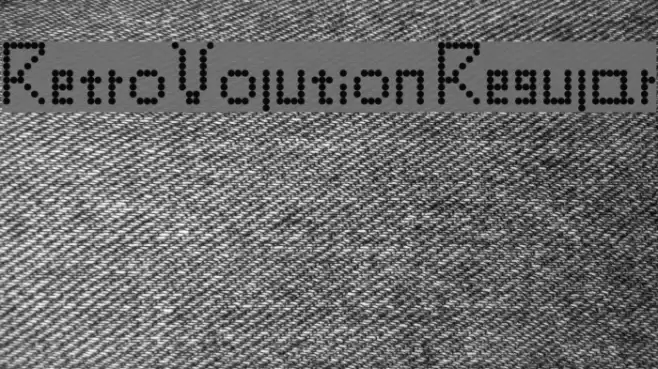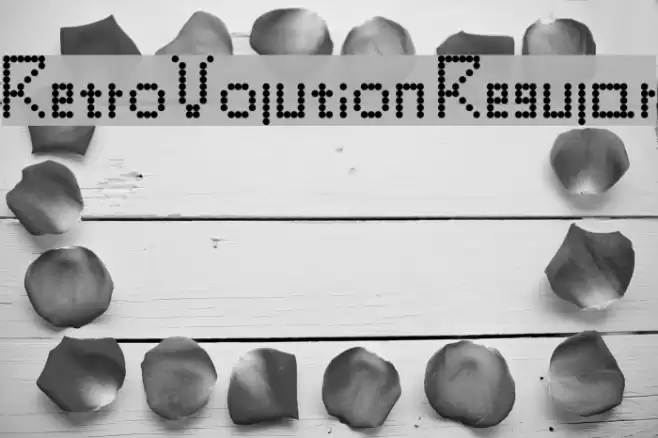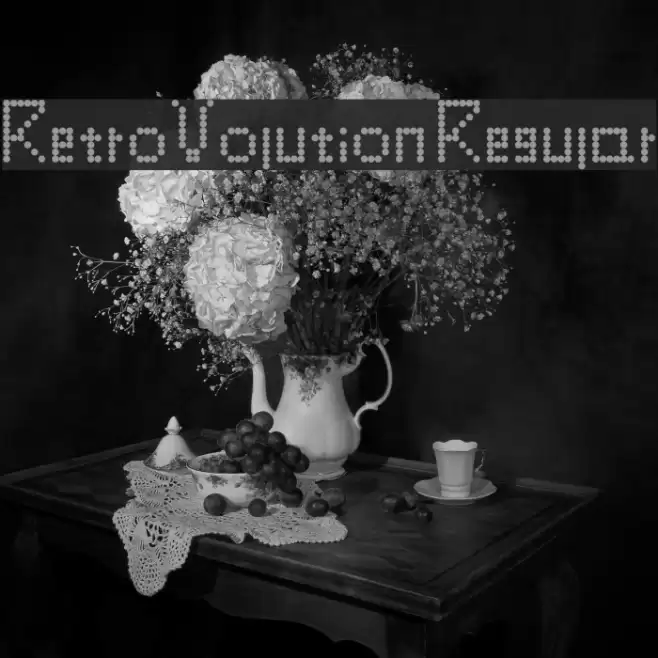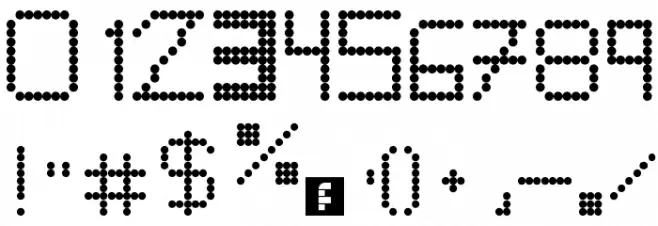
RetroVolution Regular Font
RetroVolution Regular Description
This font features a unique dot matrix style, where each character is composed of small, evenly spaced dots. The design evokes a retro, digital aesthetic reminiscent of early LED displays or dot matrix printers. The characters are uniformly structured, providing a consistent and rhythmic appearance across both uppercase and lowercase letters, as well as numbers and special characters. This font is highly decorative, making it ideal for projects that require a vintage or tech-inspired look. The spacing between the dots is precise, creating a clean and organized visual effect.
A dot matrix style font with a retro digital aesthetic from Futuristic fonts.
- Proposed Projects: Ideal for retro-themed designs, tech-inspired posters, digital art projects, and vintage-style branding.
- Overall Style: Vintage